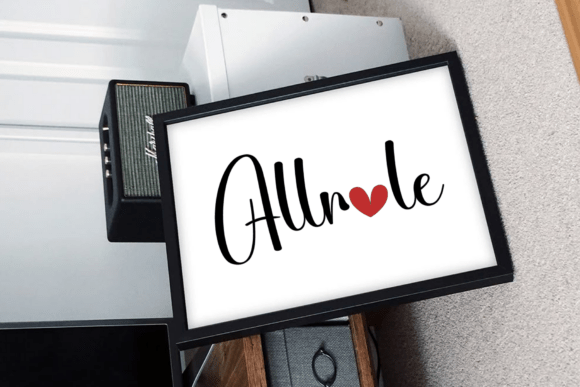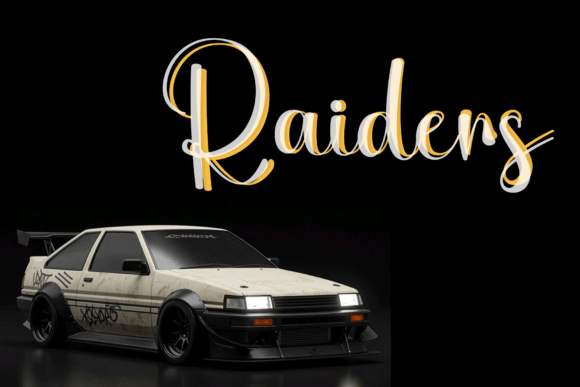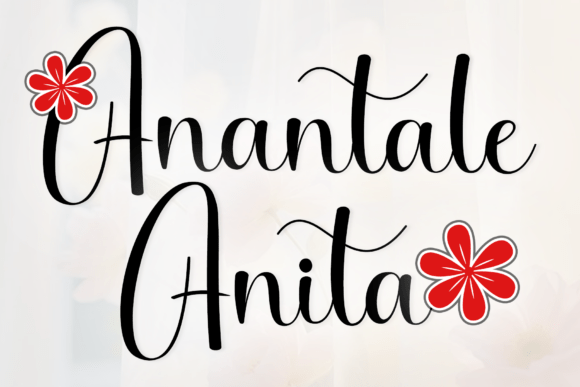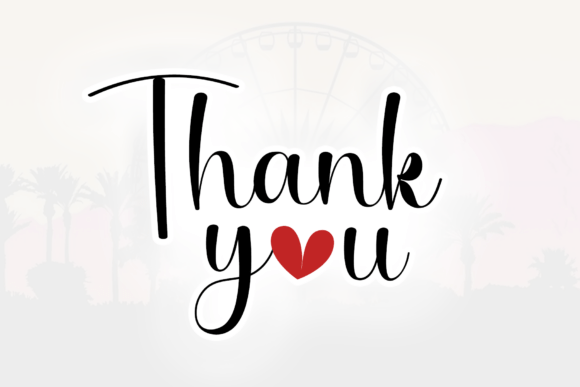
Cochella Font: Elevate Your Brand with Sophisticated Script Style
In the world of typography, few fonts manage to strike a balance between elegance and approachability. Cochella Font is one such exceptional typeface that seamlessly merges a calligraphic style with a warm, organic aesthetic. This sophisticated and rhythmic script font is perfect for artisanal food branding, boutique product packaging, upscale lifestyle marketing, and creative editorial titles. Let’s dive into what makes Cochella a premier choice for designers and crafters looking to elevate their brand’s visual identity.
The Unique Charm of Cochella
Cochella’s defining characteristic is its use of sweeping, looping ascenders that create a sense of customized, artisanal artistry. These fluid strokes not only add a touch of sophistication but also infuse the font with a personal, handcrafted feel. This unique blend of calligraphic elegance and organic warmth makes Cochella stand out in the realm of script fonts.
Perfect for Artisanal Branding
For businesses that pride themselves on artisanal quality, such as bakeries, craft breweries, and small-batch food producers, Cochella offers a typographic solution that resonates with their brand ethos. The font’s elegant loops and fluid connections evoke a sense of handcrafted care, making it an ideal fit for labels, packaging, and marketing materials.
Boutique Product Packaging
Boutique brands often seek to stand out in a crowded market with a unique visual identity. Cochella’s distinctive style, with its sweeping ascenders and refined letterforms, provides a sophisticated backdrop for product packaging. Whether it’s luxury candles, handmade jewelry, or bespoke cosmetics, Cochella adds a touch of refinement and exclusivity to product branding.
Upscale Lifestyle Marketing
In the realm of upscale lifestyle marketing, the font used can significantly impact the perceived value and aesthetic of a brand. Cochella, with its elegant and rhythmic flow, is well-suited for high-end brands looking to convey a sense of luxury and sophistication. From real estate and hospitality to fashion and beauty, Cochella can elevate marketing materials, making them more compelling and visually appealing.
Creative Editorial Titles
Beyond branding and packaging, Cochella also shines in editorial design. For magazines, blogs, and digital publications looking to add a touch of elegance to their titles, Cochella offers a stylish solution. Its unique character makes it perfect for cover titles, section headings, and any place a designer wants to make a visual impact.
Why Choose Cochella?
- Sophisticated yet Approachable: Cochella strikes a perfect balance between being elegant and friendly, making it versatile for various design applications.
- Unique Calligraphic Style: The sweeping ascenders and looping strokes give Cochella a distinctive look that sets it apart from more traditional script fonts.
- Versatile: Suitable for both digital and print applications, Cochella can be used across a wide range of design projects.
- Artisanal Feel: Perfect for brands that want to convey a sense of handcrafted quality and attention to detail.
Cochella Font is a versatile and elegant script typeface that brings a touch of sophistication and artisanal charm to any design project. Whether you’re working on branding for an artisanal food business, designing packaging for a boutique product, crafting marketing materials for an upscale lifestyle brand, or creating engaging editorial content, Cochella offers a stylish and effective solution. Its unique blend of calligraphic style and organic aesthetic makes it a valuable addition to any designer’s toolkit.
By incorporating Cochella into your design projects, you can elevate your brand’s visual identity, convey a sense of luxury and craftsmanship, and make a lasting impression on your audience. Experience the elegance and versatility of Cochella Font and discover how it can enhance your creative work.